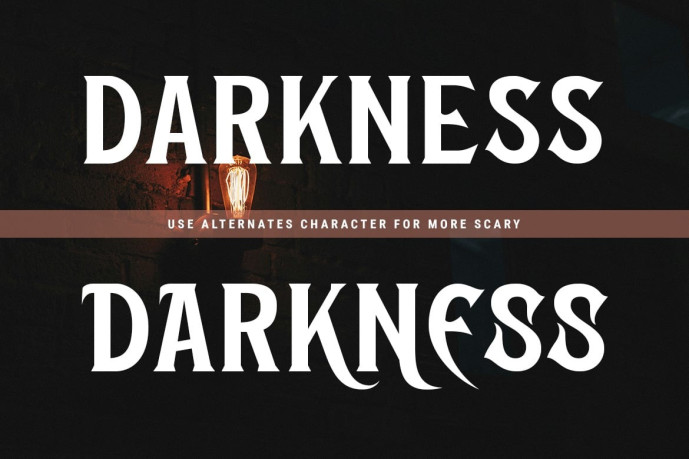
Darkveil Font
Darkveil Font is a horror display font crafted with sharp curves and mysterious gothic-inspired details. Designed for horror branding, dark fantasy projects, movie titles, gaming graphics, Halloween promotions, and atmospheric artwork. Its eerie visual character helps create tension and drama while maintaining excellent display readability.